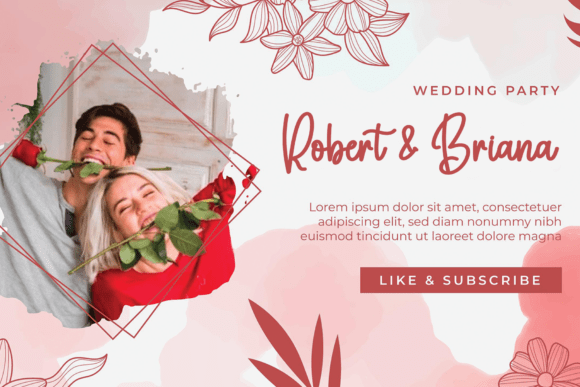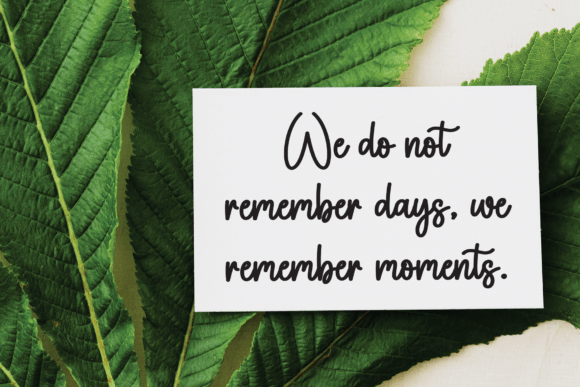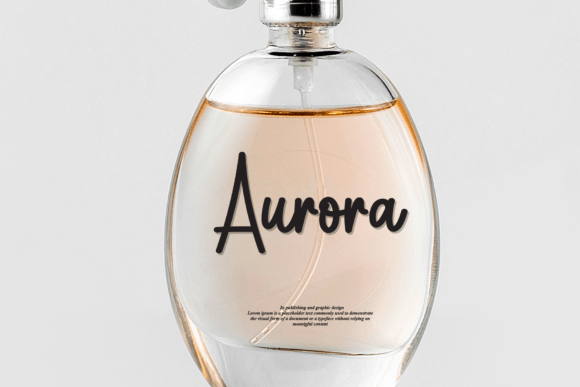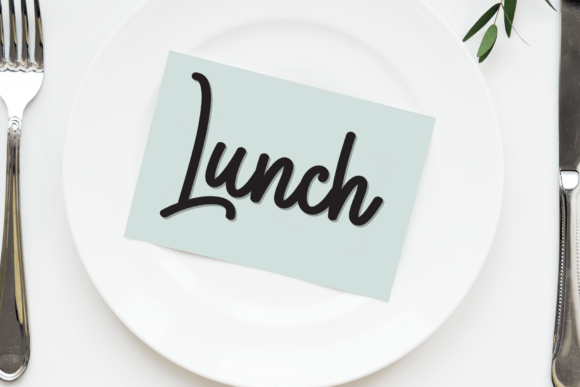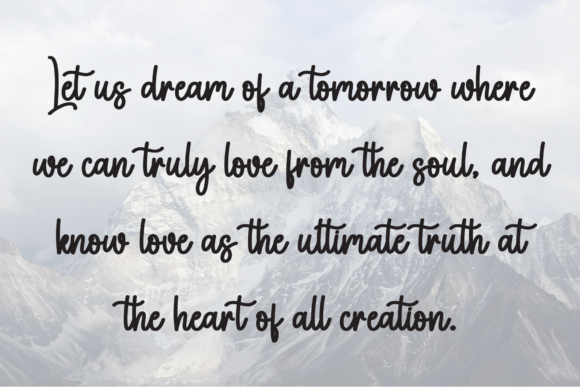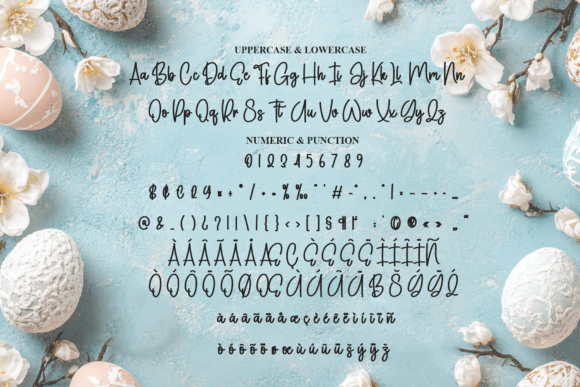
Easter Winter Font: Elevate Your Designs with Unique and Creative Typography
Are you a designer or crafter looking for a special and creative font to take your projects to the next level? Look no further than the Easter Winter Font! This stunning font is perfect for a variety of applications, from wall displays and wedding invitations to social media posts, logos, advertisements, product packaging, and more.
What Makes Easter Winter Font So Special?
The Easter Winter Font is a unique and creative font that offers a fresh and modern take on traditional typography. With its elegant and cursive style, this font is sure to add a touch of sophistication and whimsy to any project. Whether you’re designing for a special occasion or just want to add some personality to your everyday designs, this font is the perfect choice.
Key Features of Easter Winter Font
- Latest Style Letters: The Easter Winter Font features the latest style letters that are perfect for a variety of design applications.
The Easter Winter Font is perfect for a wide range of design applications, including:
- Wall Displays: Create stunning wall displays for your home or office with this beautiful font.
- Wedding Invitations: Add a touch of elegance and sophistication to your wedding invitations with this gorgeous font.
- Social Media Posts: Elevate your social media posts with eye-catching typography that grabs attention.
- Logos: Create unique and memorable logos for your business or brand with this versatile font.
- Advertisements: Take your advertisements to the next level with bold and eye-catching typography.
- Product Packaging: Add a touch of personality to your product packaging with this creative font.
- Product Designs: Create stunning product designs that showcase your brand’s personality and style.
- Labels: Design beautiful labels for your products or gifts with this elegant font.
- Photography: Add a touch of whimsy to your photography with this unique font.
- Watermarks: Create custom watermarks for your photos or designs with this versatile font.
- Invitations: Design beautiful invitations for any occasion with this gorgeous font.
- Stationery: Elevate your stationery with elegant and sophisticated typography.
Why Choose Easter Winter Font?
With so many fonts on the market, why choose Easter Winter Font? Here are just a few reasons:
- Unique and Creative: This font offers a fresh and modern take on traditional typography, making it perfect for designers and crafters who want to stand out.
- High-Quality: The Easter Winter Font is a high-quality font that is designed to deliver exceptional results.
- Versatile: This font is perfect for a wide range of design applications, making it a great addition to any designer’s toolkit.
If you’re looking for a unique and creative font to elevate your designs, look no further than the Easter Winter Font. With its elegant and cursive style, this font is perfect for a wide range of applications, from wall displays and wedding invitations to social media posts and product packaging. With its high-quality design, versatility, and ease of use, this font is a must-have for any designer or crafter.